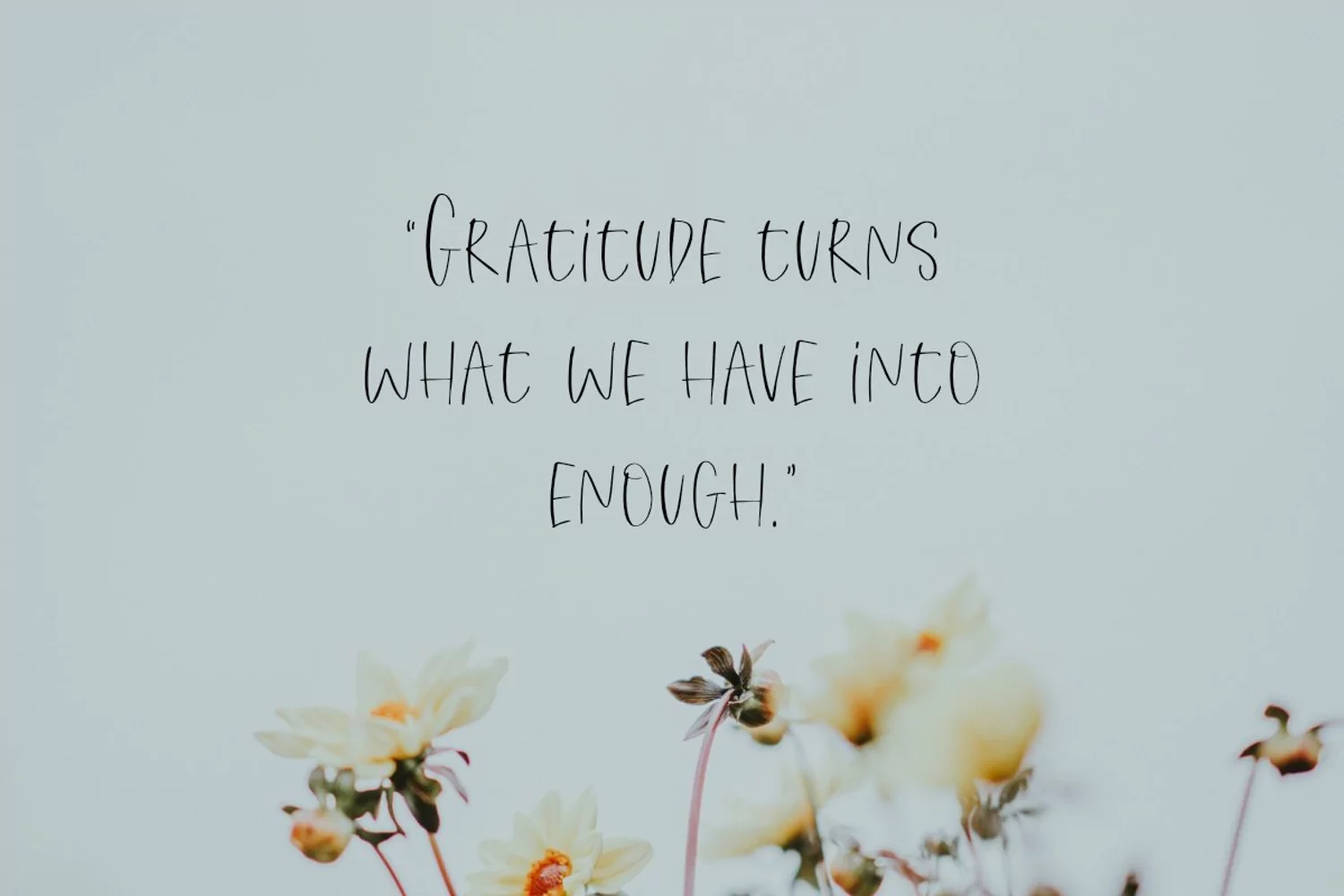
Countless Blessing is a fun and casual handwritten font. It’s readable and it has a playful feel. Get inspired by its simplistic charm and use it to brighten up any creative project
Countless Blessings